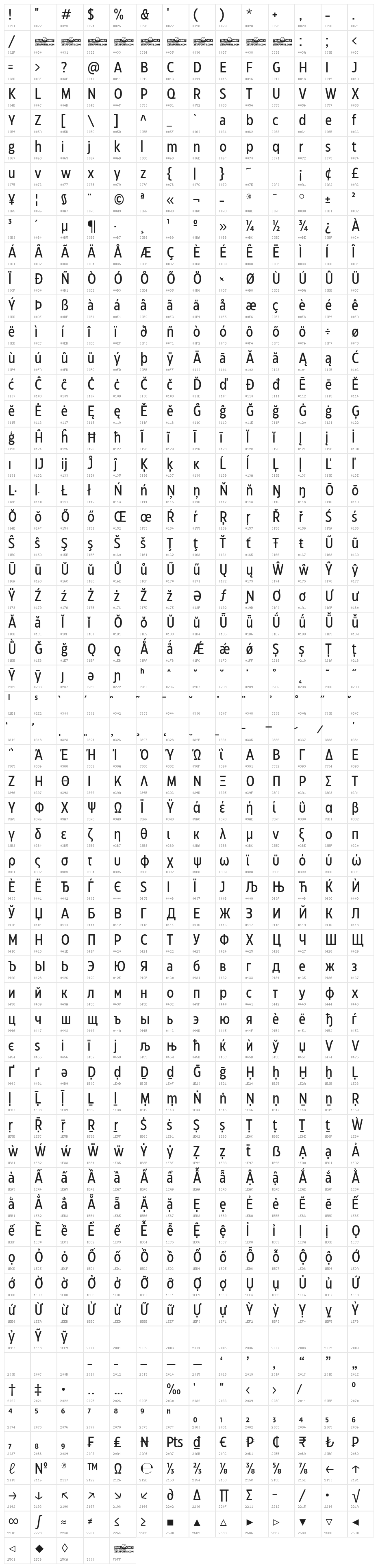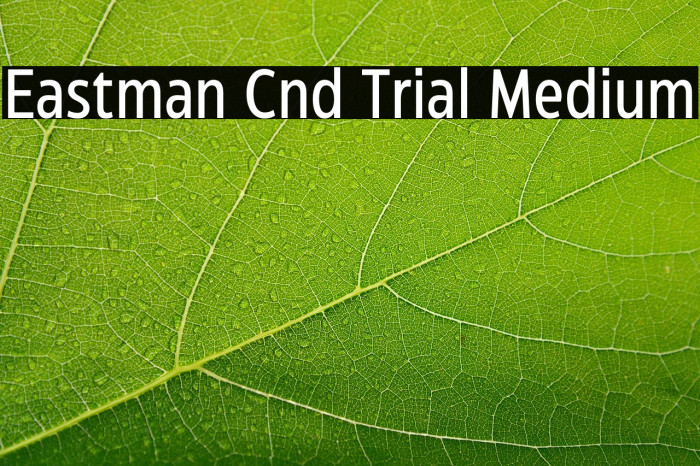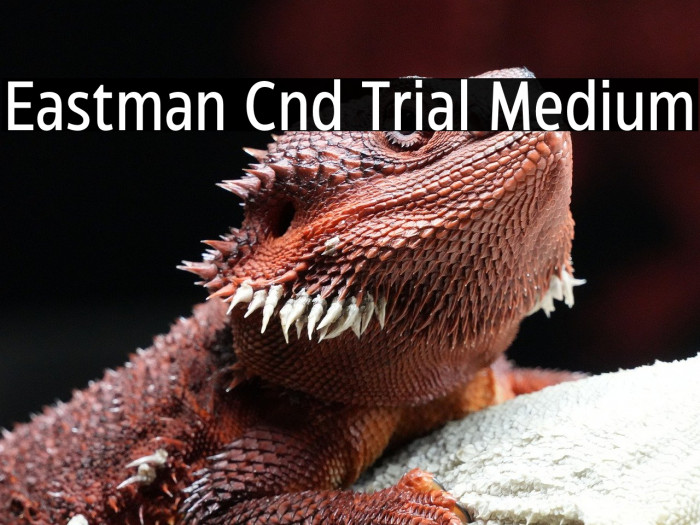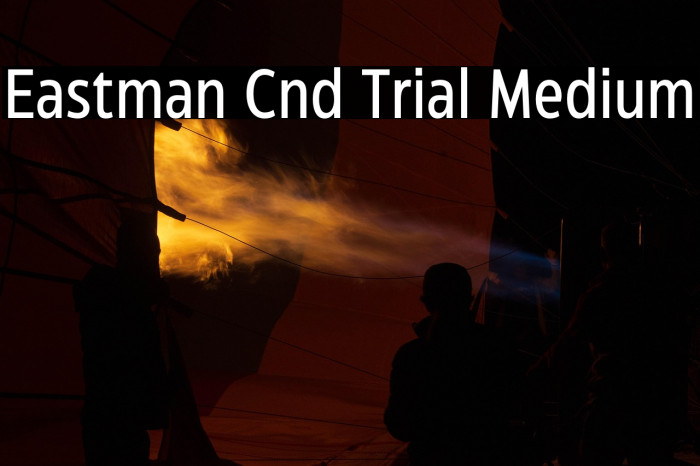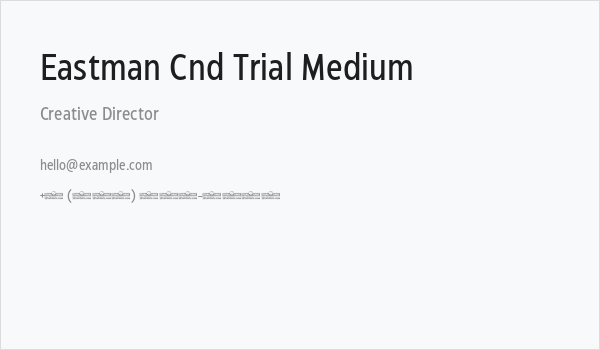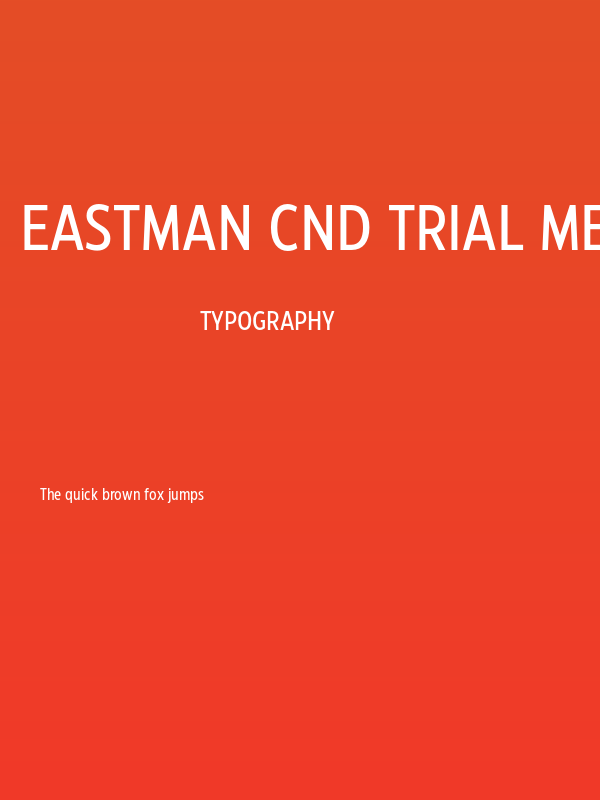
Eastman Cnd Trial Medium Font
Eastman Cnd Trial Medium Description
This font features a clean and modern design with a sans-serif style, characterized by its condensed letterforms. The uppercase and lowercase letters are well-balanced, offering a uniform appearance that enhances readability. The numerals and special characters maintain the same aesthetic, ensuring consistency across different types of content. The strokes are even, with a medium contrast that provides a clear distinction between thick and thin lines, contributing to its legibility. This font is versatile, suitable for both digital and print media, and can be used effectively in various design projects.
Proposed ProjectsIdeal for branding, advertising, web design, and editorial layouts where a modern and clean look is desired.